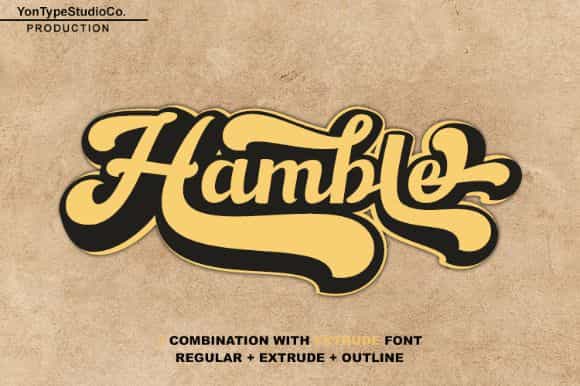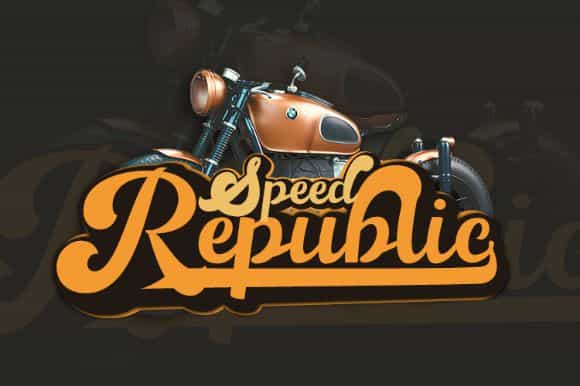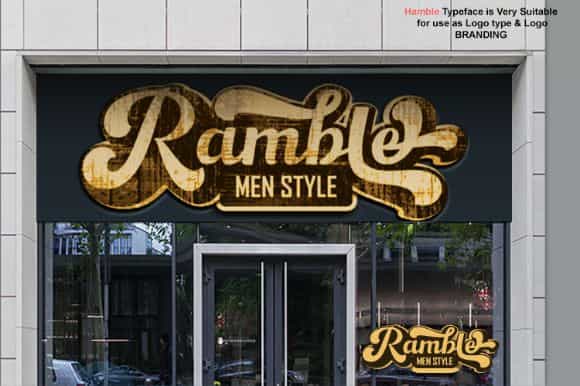
Hamble Font features script fonts meticulously designed through lettering techniques. Perfect, for logo creation small text blocks print materials etc. The character set includes uppercase lowercase letters numbers common symbols alternates swashes ligatures.